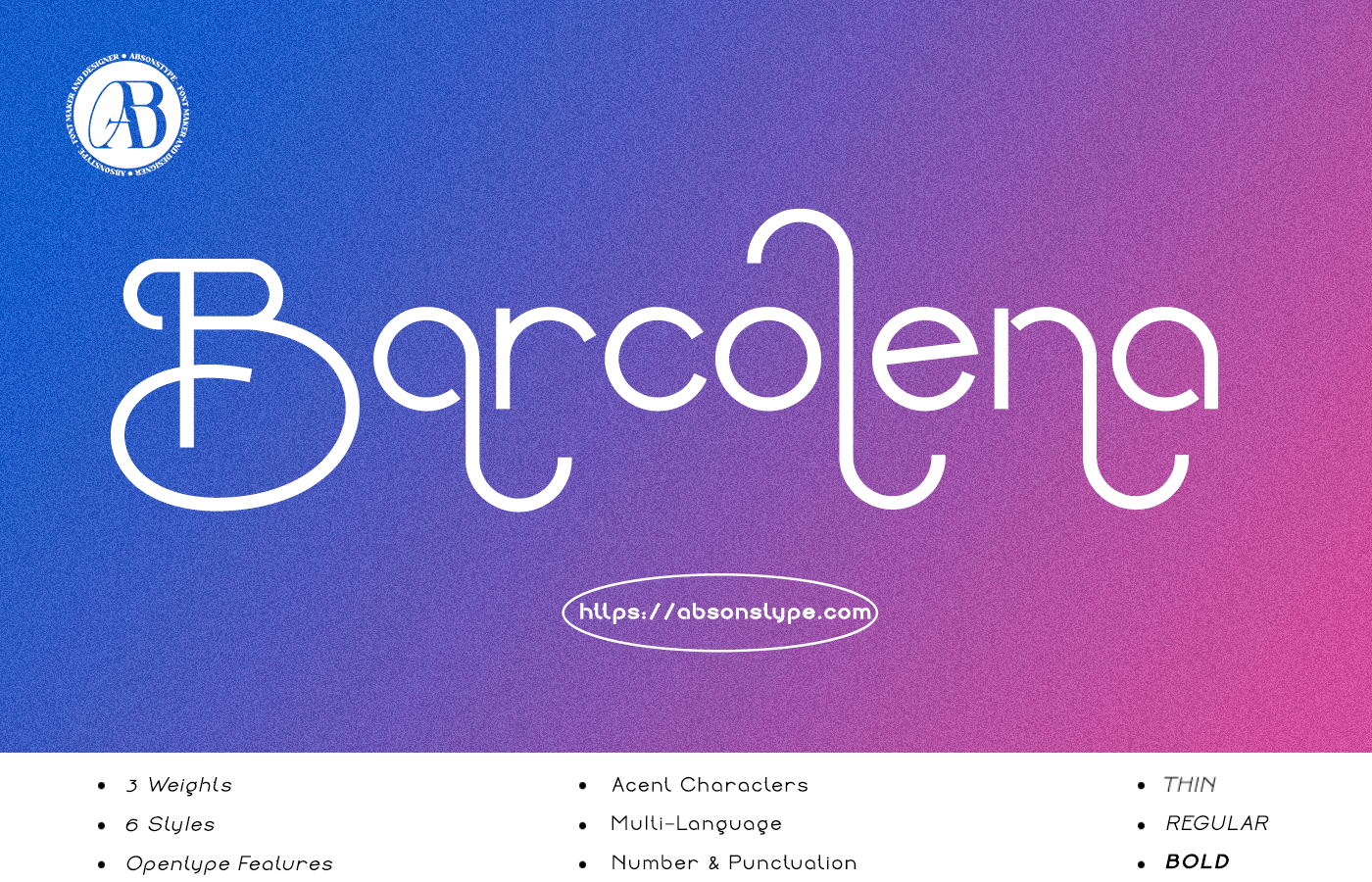
Barcolena
Barcolena is the geometric sans serif style with uppercase and lowercase looks and feel nice balanced. Provide alternates font in uppercase and lowercase variant style make the design letter looks nice. Honestly it works perfectly for headlines, logos, posters, packaging, T-shirts and much more.
- 3 Weights in Thin, Regular, Bold and also 6styles include Italic version
- Character set A-Z in uppercase and lowercase
- Alternates
- Numerals & Punctuation
- Accented Characters
- Multiple Languages Supported